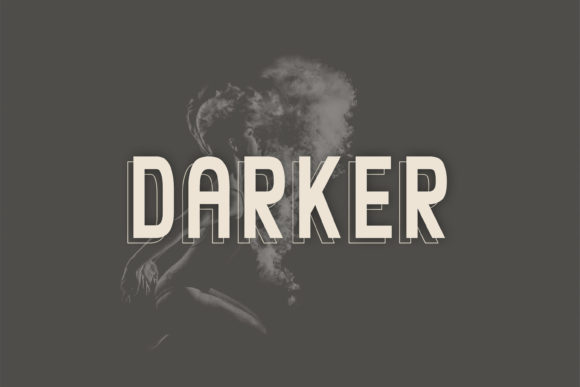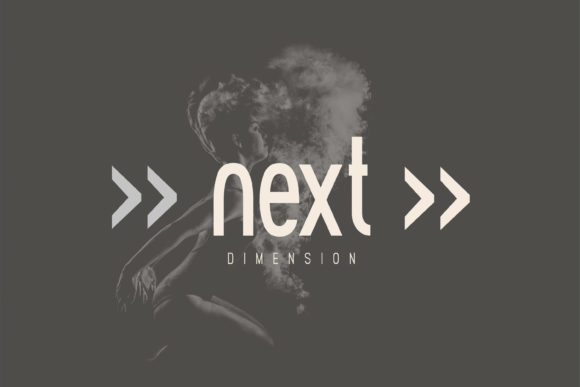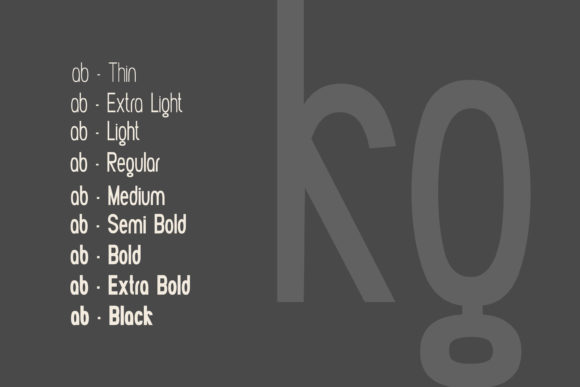
Introduction to Gringe Typeface Font
Gringe is a minimal and neat display font.
This font is ideal for writing web designs, business cards, or pretty much anything else that requires a techno, futuristic touch .
Key Features of Gringe Typeface Font
Why Choose Gringe Typeface Font?
Gringe Typeface Font offers exceptional quality and versatility, making it a valuable addition to your design toolkit. Whether you’re creating for personal projects or commercial use, Gringe Typeface Font delivers professional results.